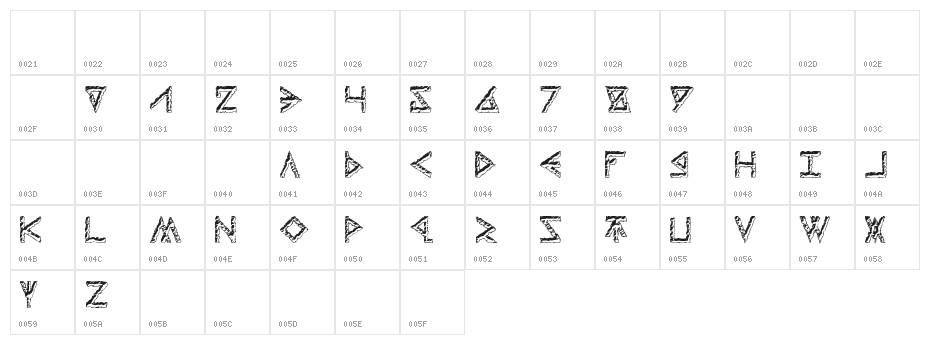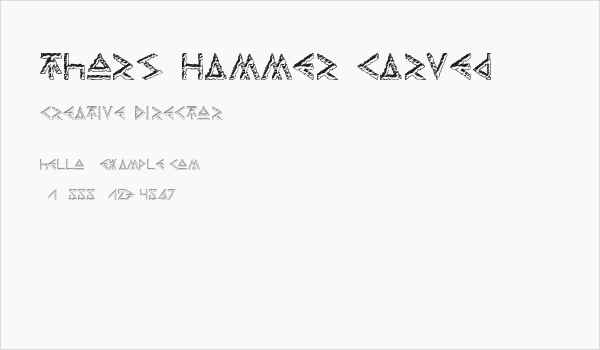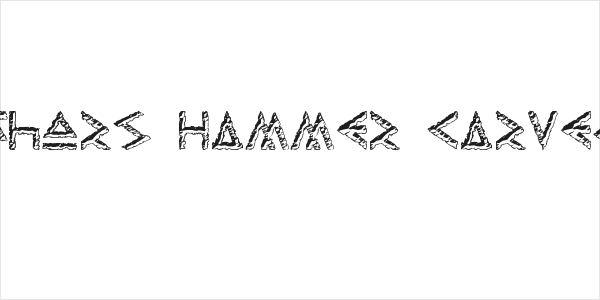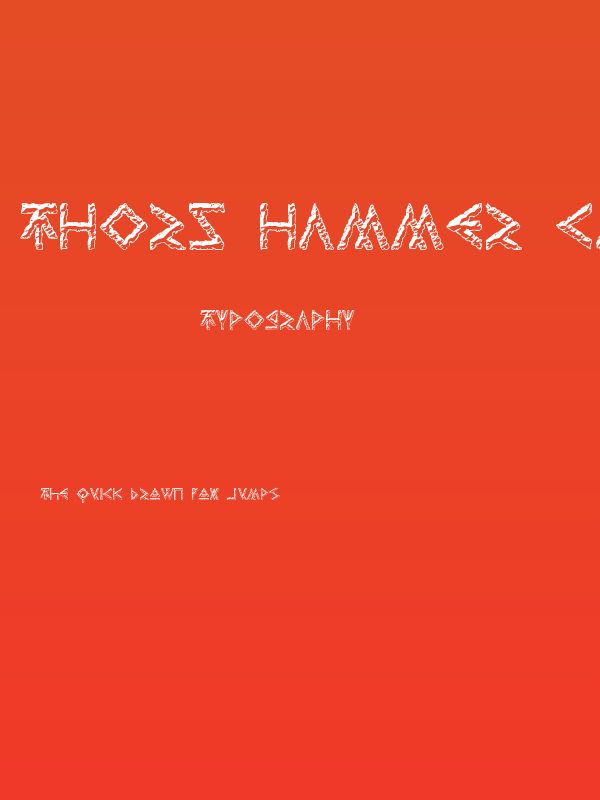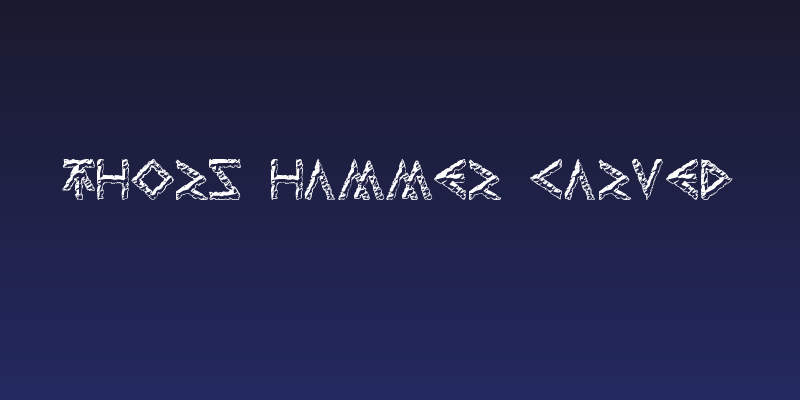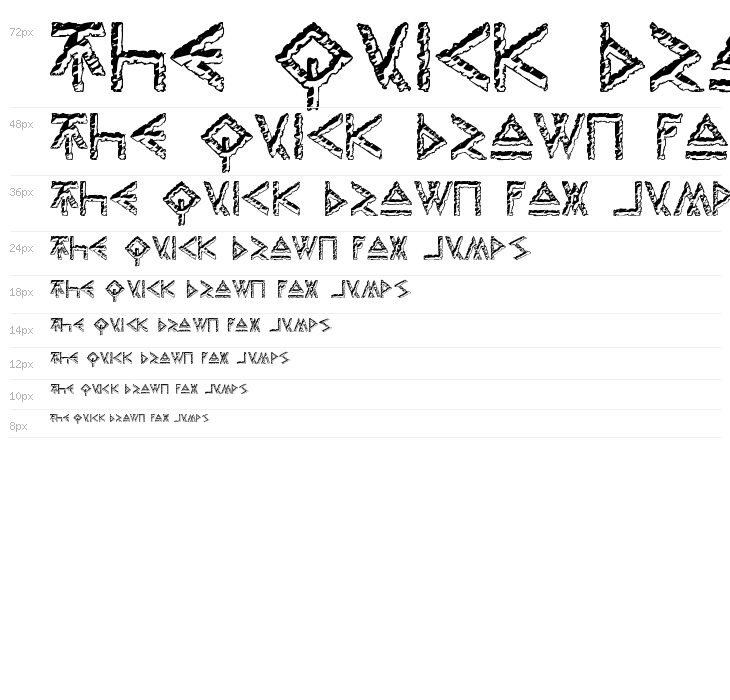
Thors Hammer Carved Font
Thors Hammer Carved Description
This font features a rugged, carved appearance reminiscent of ancient runes or stone engravings. Each character is designed with a rough, textured edge that gives the impression of being chiseled out of rock. The angular and bold strokes create a sense of strength and durability, making it ideal for themes related to mythology, history, or fantasy. The uppercase and lowercase letters maintain a consistent style, with numbers and special characters following the same aesthetic. This font's unique design makes it stand out, perfect for projects that require a bold and distinctive look.